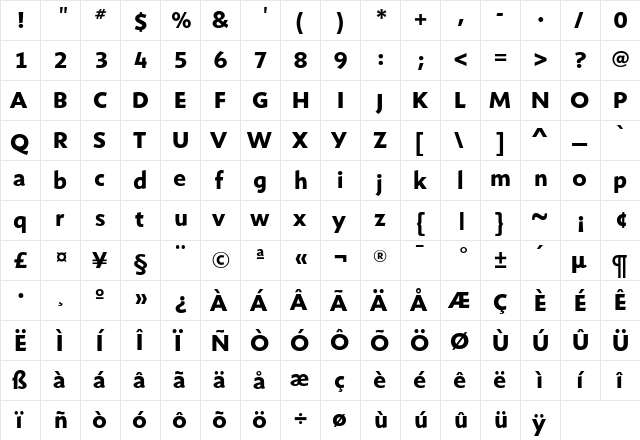
ShinnBold Regular
Design Context for ShinnBold Typeface
ShinnBold offers clean, dependable letterforms without strong stylistic allegiance, making it a practical choice for designers who need flexibility. The heavy weight commands attention and anchors typographic hierarchies.